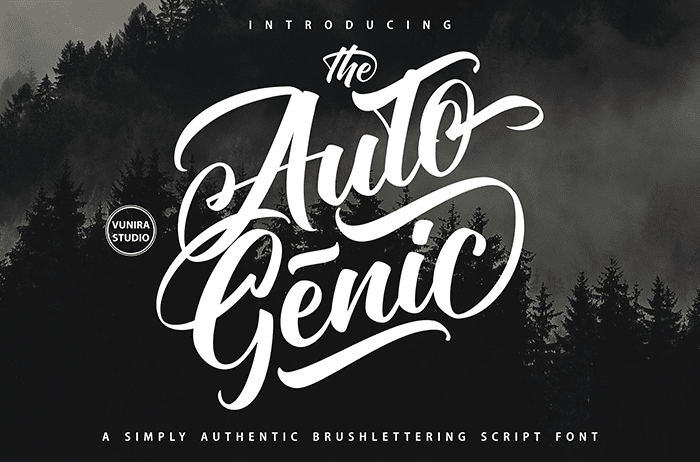
Autogenic Script Font
Autogenic Script Font is both daring and traditional, perfectly tailored to fit a big variety of design projects. Thanks to Vunira for sharing this font. Take a look at this portfolio for more of his stunning fonts.